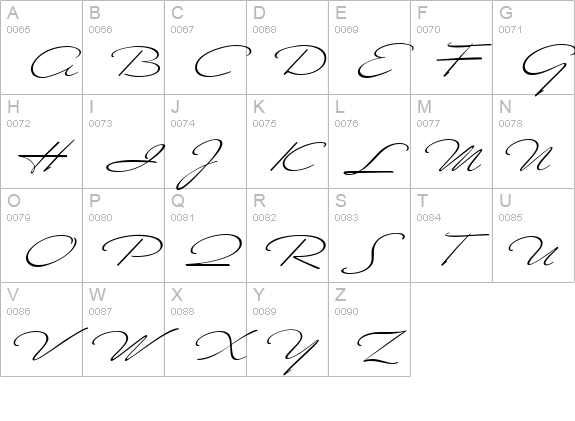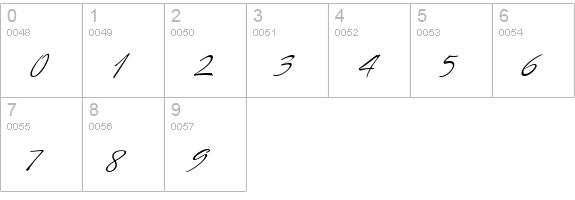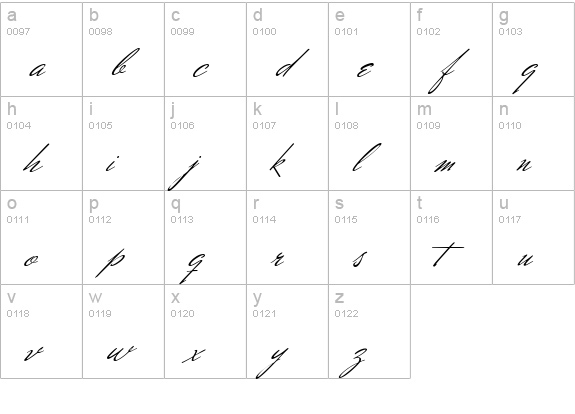
Mr Canfields Font Details
Mr Canfields font is a stunning display typeface that effortlessly combines elegance with modernity. Its unique design features intricate details and graceful curves that make it perfect for adding a touch of sophistication to any project. Whether you're working on a branding design, logo, or any other creative project, this font is sure to stand out and make a lasting impression. The best part about Mr Canfields font is that it is available for free download at FontsMarket.com. This means that you can easily access this beautiful font and use it in your projects without any cost. Don't miss the opportunity to enhance your designs with this exquisite typeface that exudes charm and style. Download Mr Canfields font today and elevate your creative work to new heights.